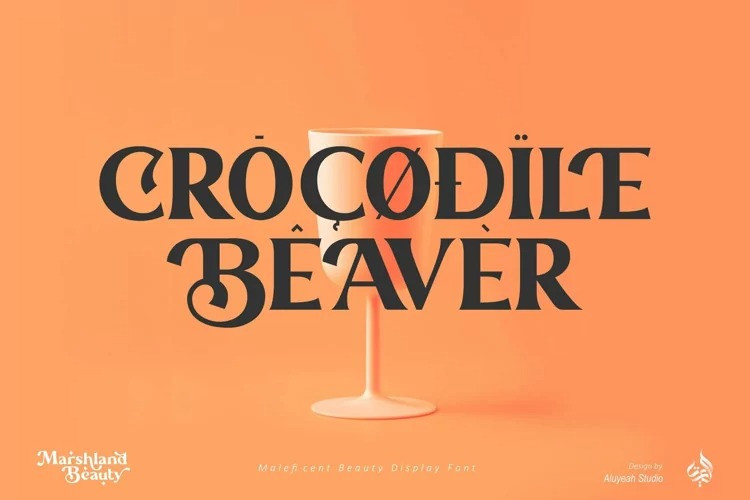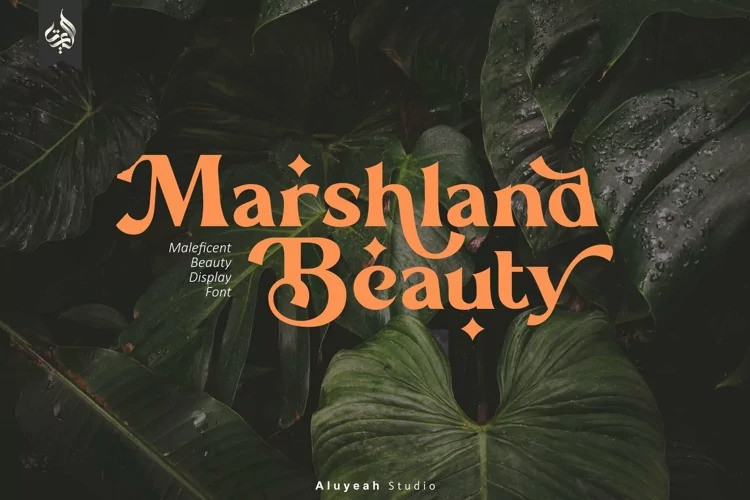
Marshland Beauty Font
Marshland Beauty Serif Font
This Font designed by Aluyeah Studio is made to bring out a modern and stylish view of what you make. This font contains upper & lowercase characters, all punctuation, and numerals. Also features ligatures and alternates characters to help the text flow naturally and add a custom-made feel. Very suitable for magazine, headline, website, ads, product package and all type of design project you have.